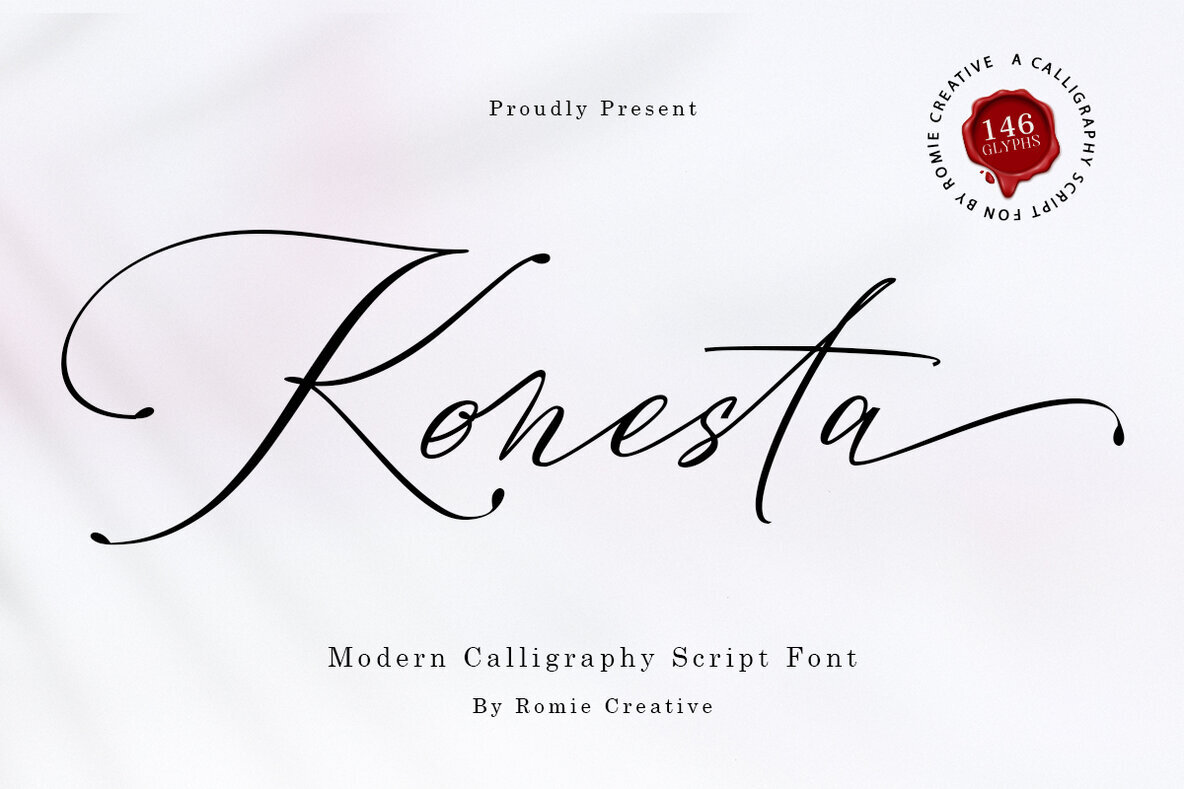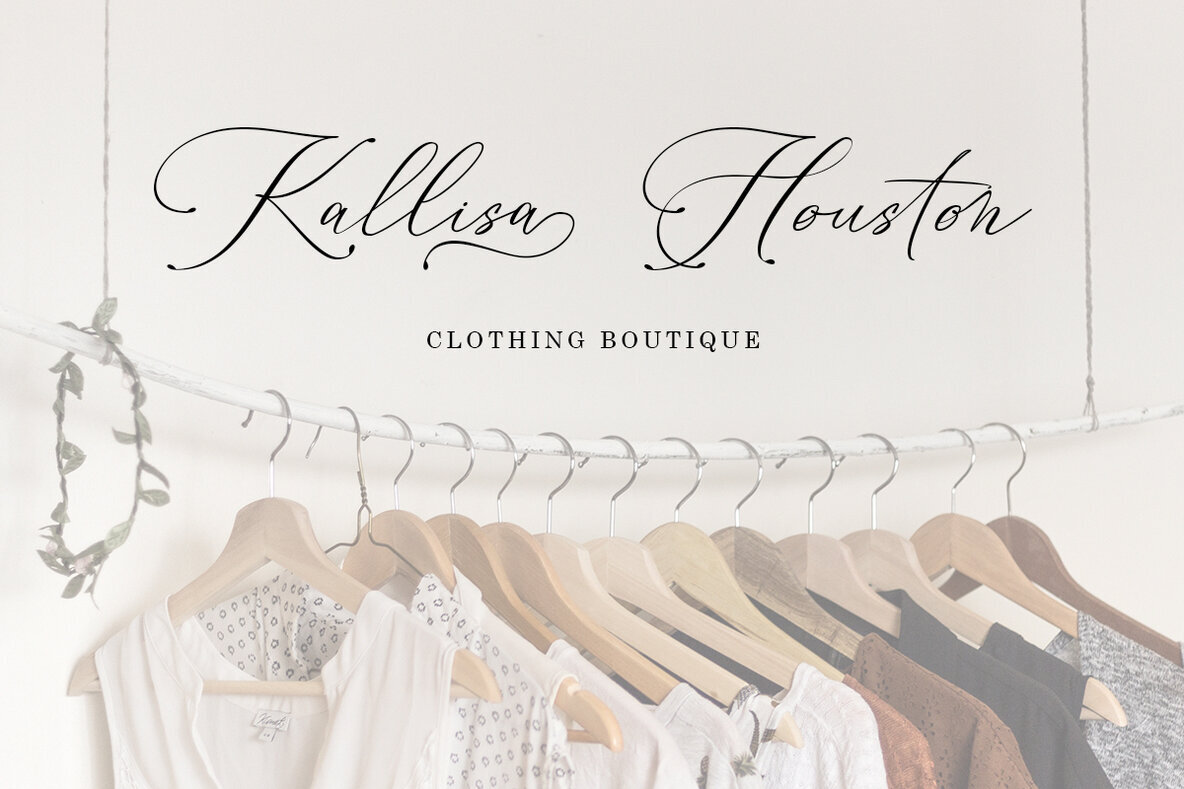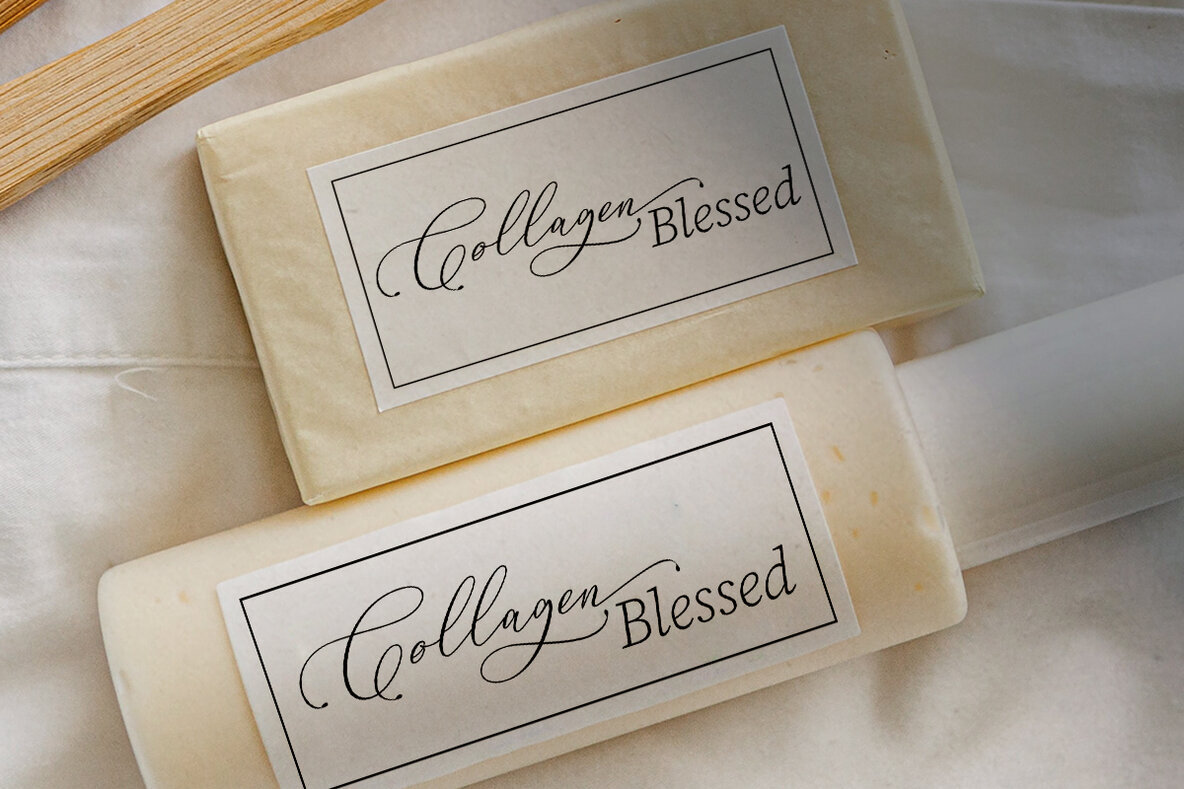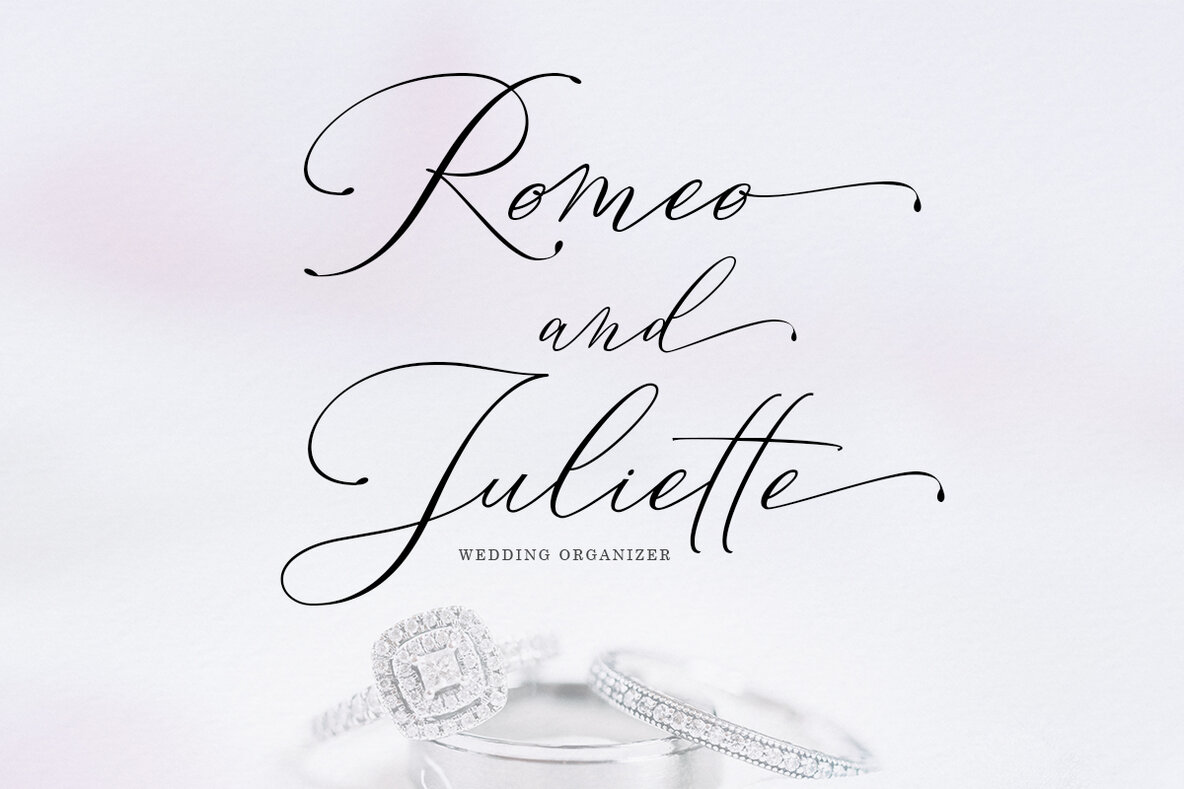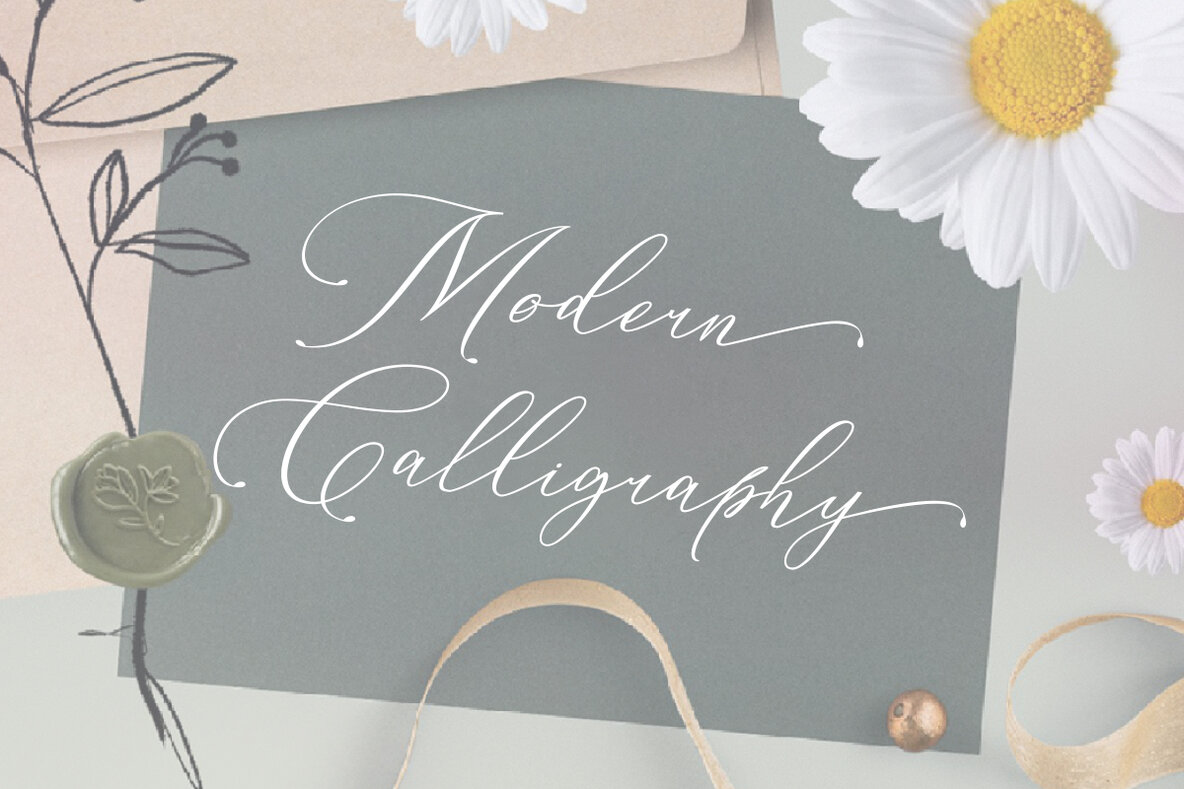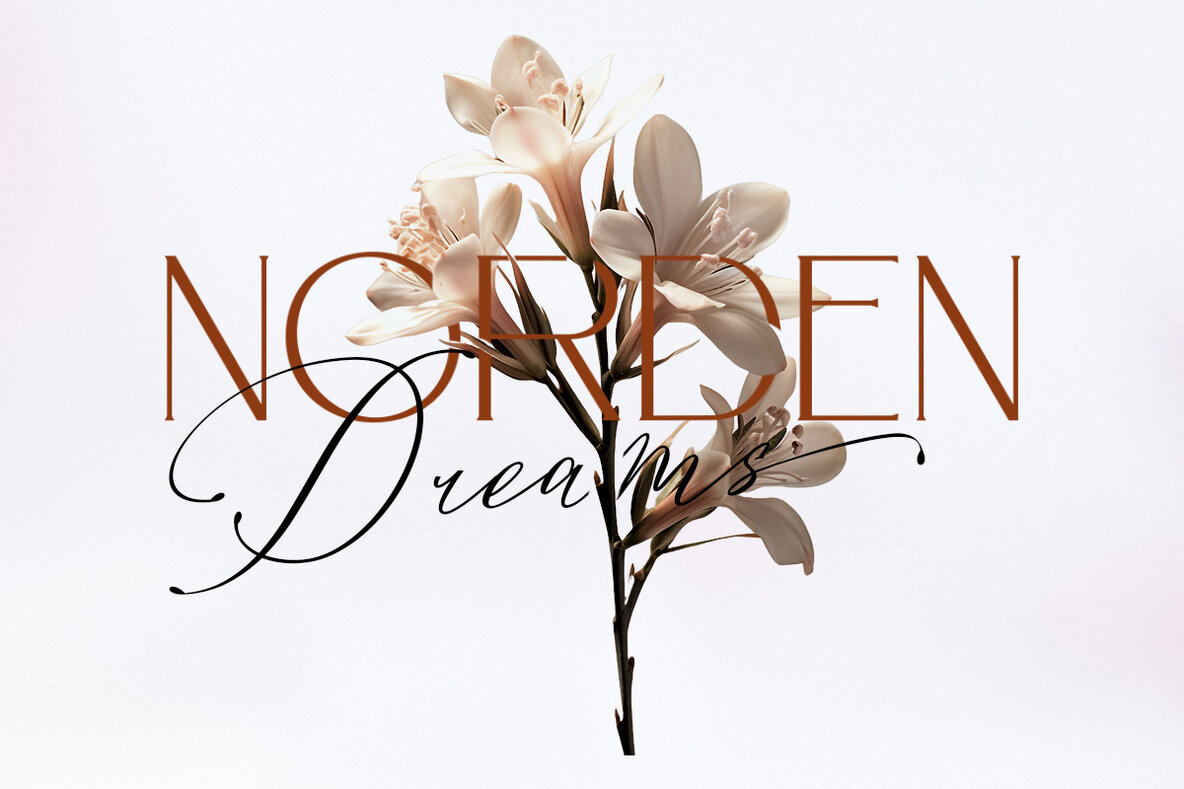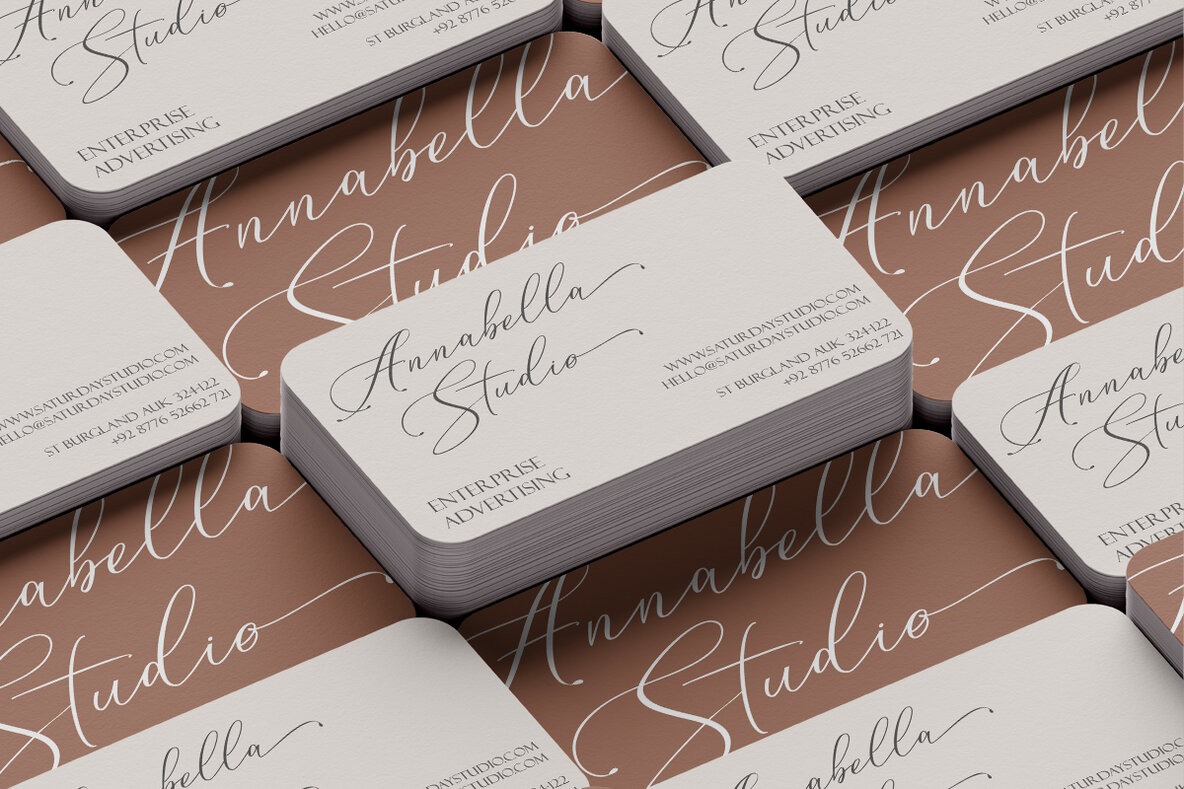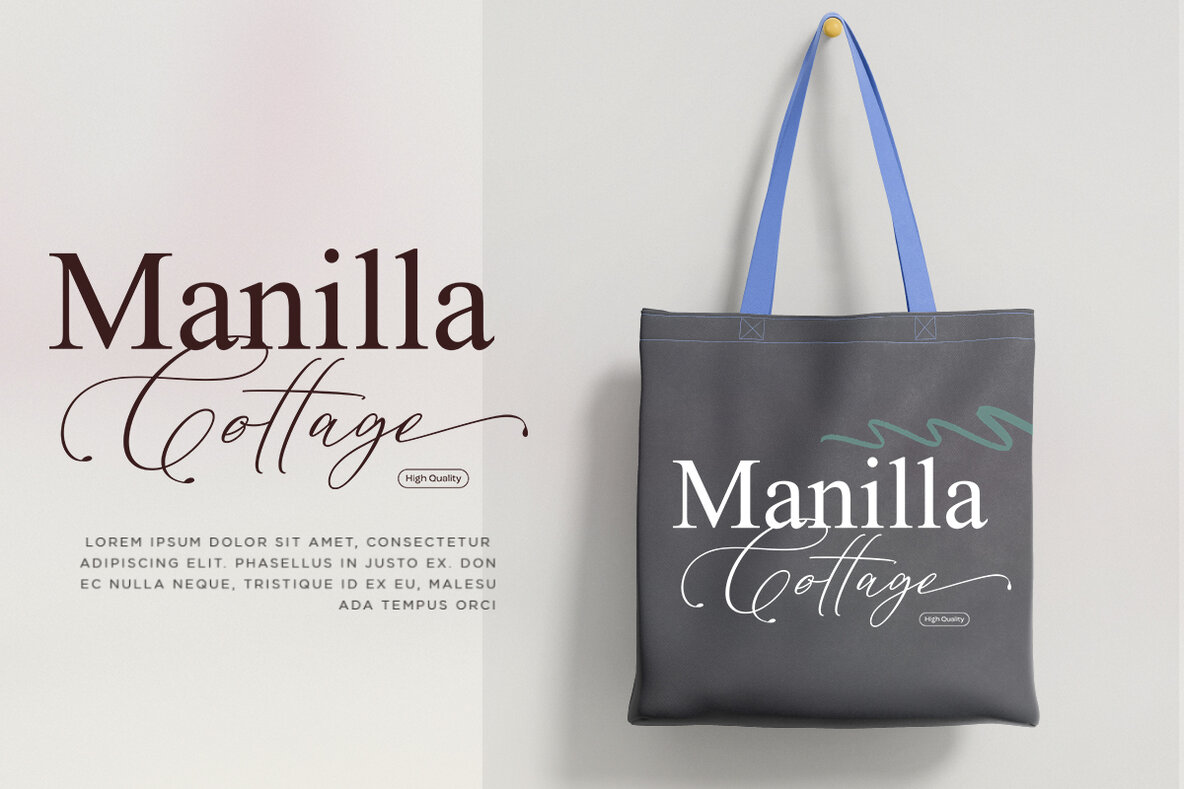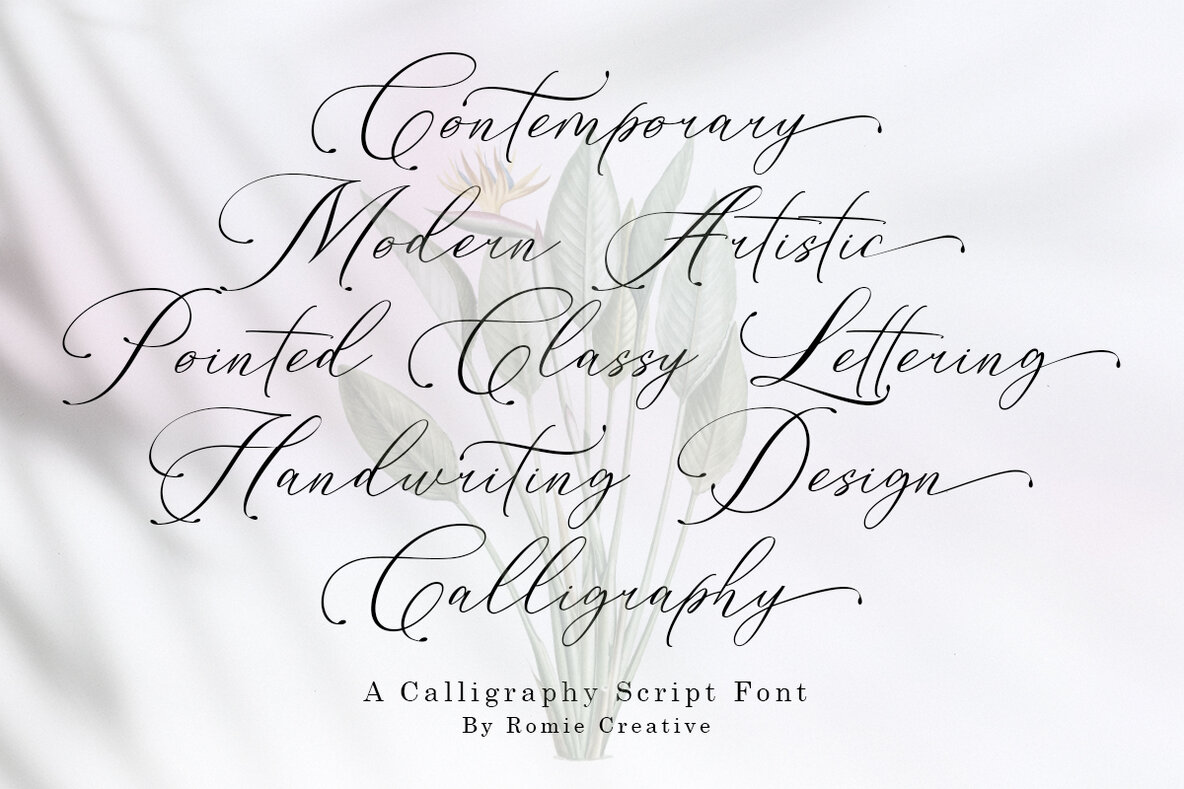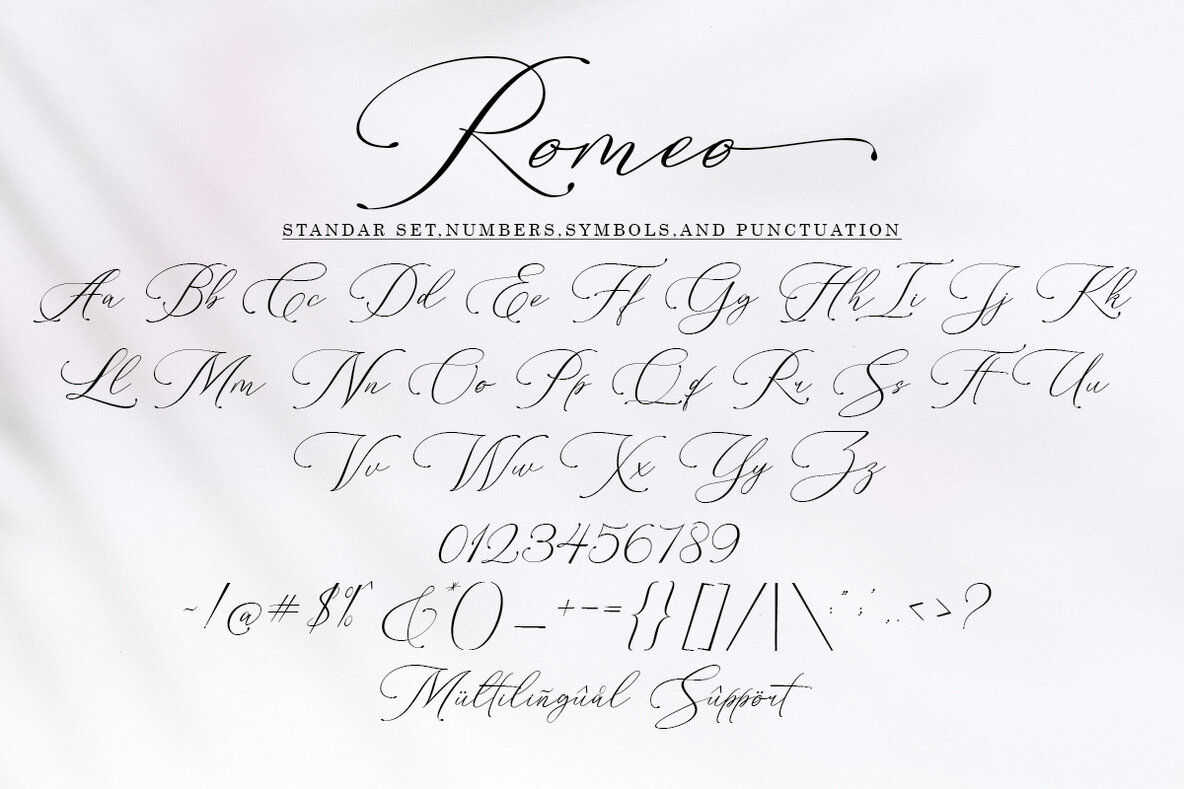
Konesta Font
Inspired by the elegance of clean handwriting, Konesta offers a modern calligraphy style that adds sophistication to your creative projects. This script font features exquisite beginning and ending lowercase swashes, making it an ideal choice for branding, logos, invitations, greeting cards, and headlines. Whether you're a graphic designer or craftsman, Konesta provides the versatility and style you need for any project. Embrace the art of modern calligraphy with this elegant script font, designed to elevate your designs with its graceful appearance.Konesta: Modern Calligraphy Script